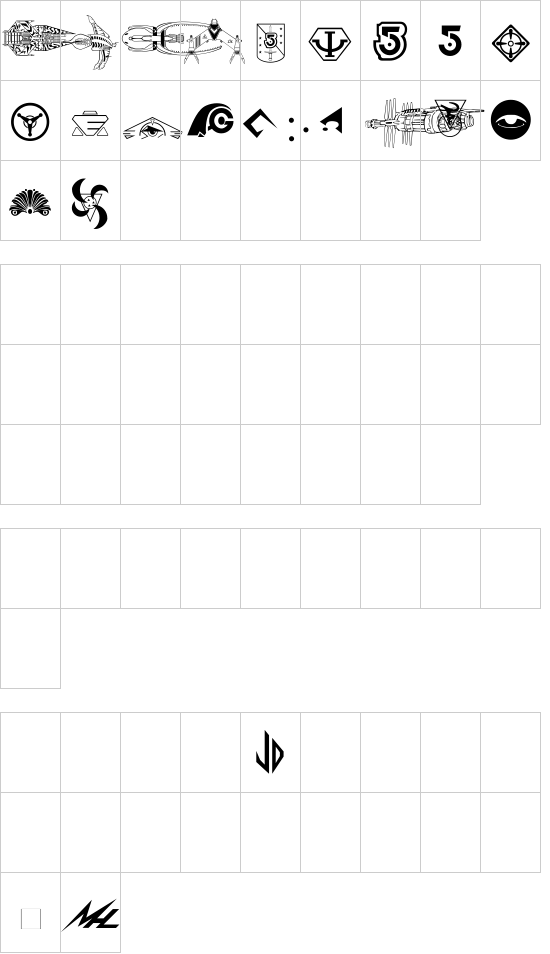
B5wingdings is a dingbat face that swaps letters for a set of decorative symbols and pictograms. Each key reveals an icon or ornament rather than readable text, with a mix of small graphics that range from simple marks to more detailed shapes, giving you a ready-made library of elements to drop into a design.
It is handy for design accents, icon graphics, themed decorations, and creative layouts that need quick symbol elements. B5wingdings is free to download as a TrueType file, and you can tap through the keys in the preview to see which symbols appear before downloading.